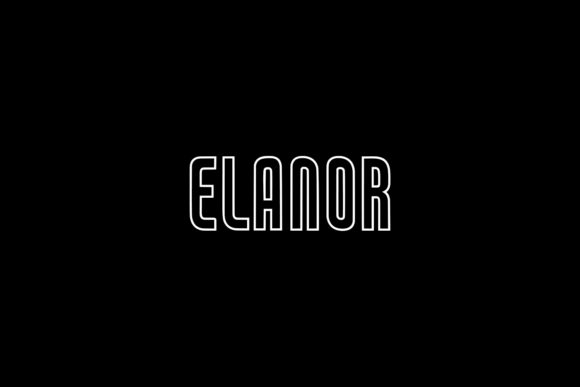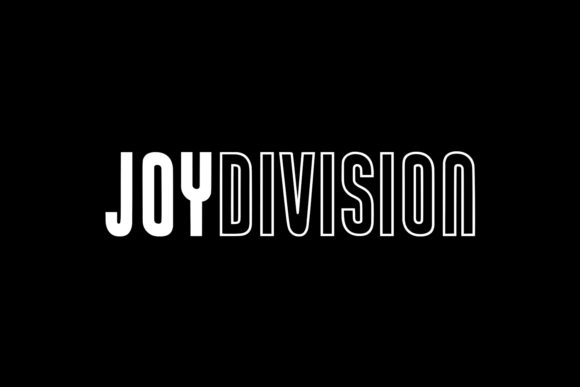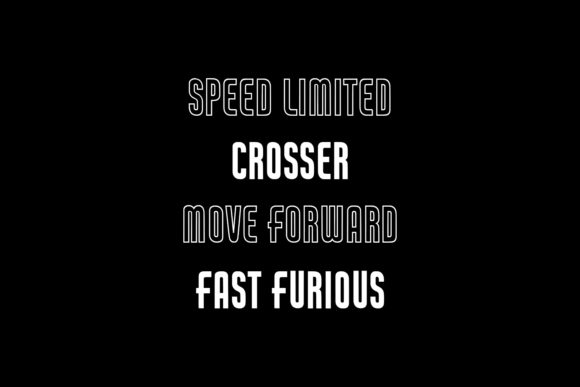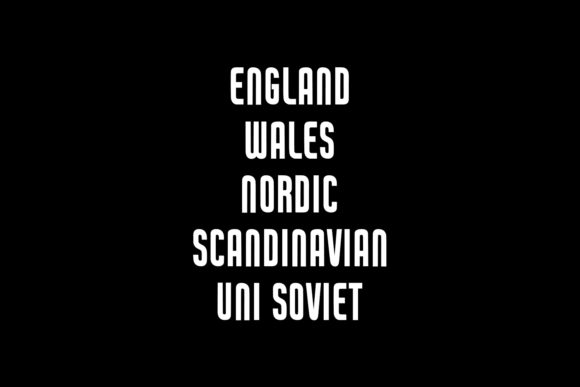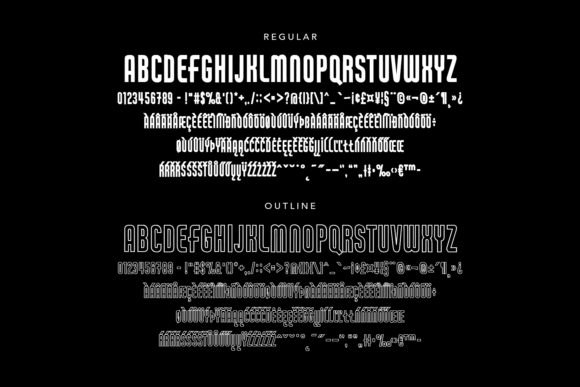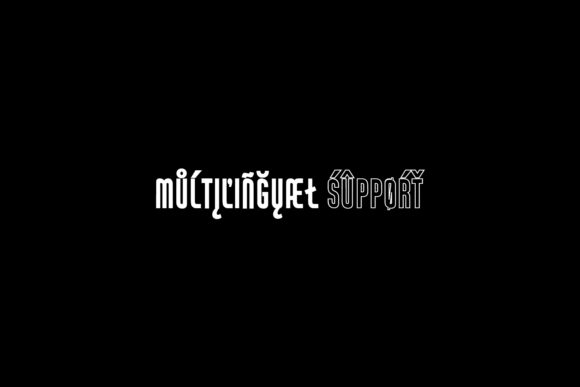
Introducing Elanor Font: The Ultimate Sans Serif for Creative Projects
In the world of typography, fonts play a crucial role in making or breaking a design. A well-chosen font can elevate your creative project, making it stand out from the crowd. If you’re a designer, crafter, or simply someone who loves to dabble in creative endeavors, you’re in luck! Today, we’re excited to introduce you to Elanor Font, a minimal yet bold sans serif font that’s sure to become a staple in your design toolkit.
What is Elanor Font?
Elanor is a sleek and modern sans serif font that’s designed to make a statement. Its clean lines, simple shapes, and bold structure make it perfect for a wide range of projects, from branding and advertising to packaging and digital media. Whether you’re looking to create a bold logo, eye-catching headline, or simply want to add some visual interest to your text, Elanor Font is the perfect choice.
Key Features of Elanor Font
- Minimal yet bold: Elanor Font strikes the perfect balance between simplicity and impact. Its minimalist design ensures that your message is clear and concise, while its bold structure adds a touch of drama and flair.
- Versatile: Elanor Font is incredibly versatile and can be used in a wide range of projects, from print materials like brochures and posters to digital media like social media graphics and website headers.
- Easily paired: Elanor Font can be easily paired with other fonts to create a unique and visually appealing typography combination.
- High-quality: Elanor Font is a high-quality font that’s designed to look great in any context, whether you’re using it for a large-scale project or a small-scale design.
Why Choose Elanor Font?
So, why choose Elanor Font for your next project? Here are just a few reasons:
- Stand out from the crowd: Elanor Font is designed to make a statement. Its bold structure and clean lines ensure that your design will stand out from the crowd and grab attention.
- Perfect for modern designs: Elanor Font is perfect for modern designs that require a clean, minimalist aesthetic. Its simple shapes and bold structure make it a great fit for contemporary designs.
- Easily legible: Despite its bold structure, Elanor Font is incredibly legible, even at small sizes. This makes it perfect for body text, captions, and other applications where readability is key.
How to Use Elanor Font
Using Elanor Font is easy! Here are a few tips to get you started:
- Pair it with other fonts: Elanor Font pairs well with a wide range of fonts, from serif fonts like Georgia and Times New Roman to script fonts like Pacifico and Great Vibes.
- Experiment with different sizes: Elanor Font looks great at a wide range of sizes, from large headlines to small body text.
- Use it for branding: Elanor Font is perfect for branding projects, from logos to business cards.
In conclusion, Elanor Font is a versatile and bold sans serif font that’s perfect for a wide range of creative projects. Its clean lines, simple shapes, and bold structure make it a great fit for modern designs, and its high-quality design ensures that it will look great in any context. Whether you’re a designer, crafter, or simply someone who loves to dabble in creative endeavors, Elanor Font is a great addition to your design toolkit.